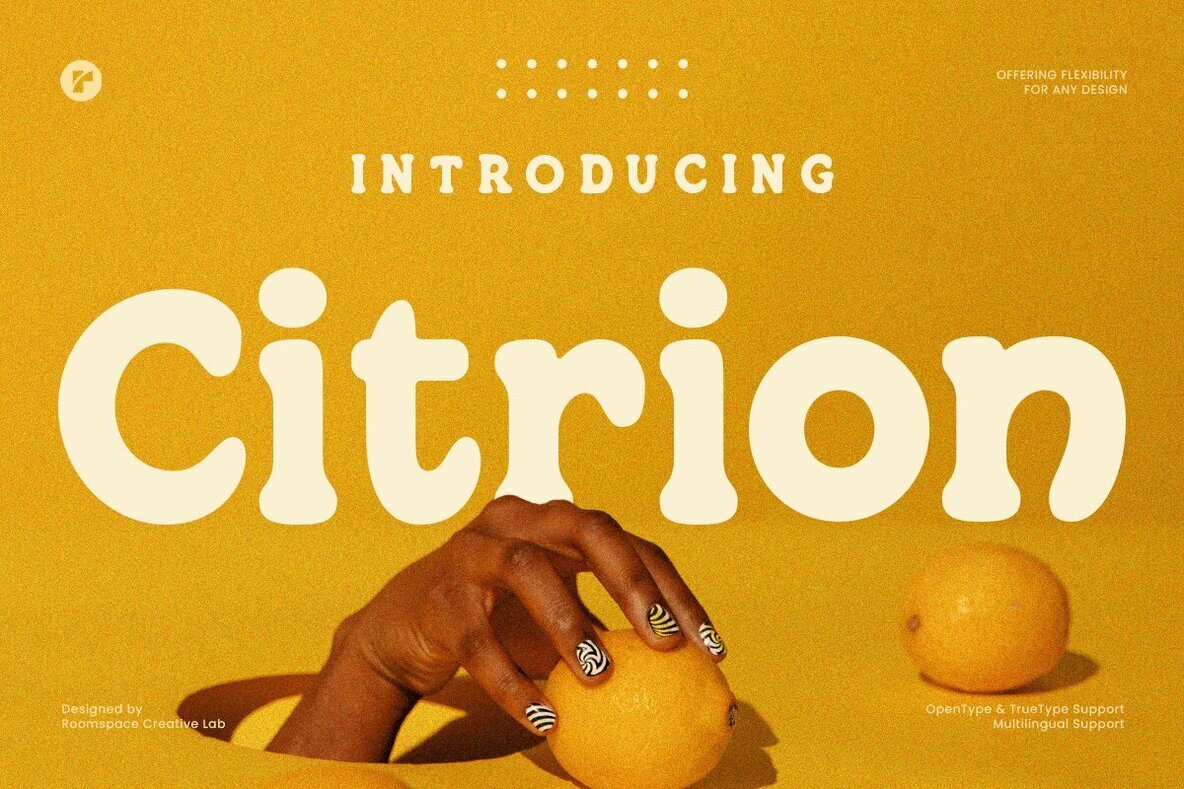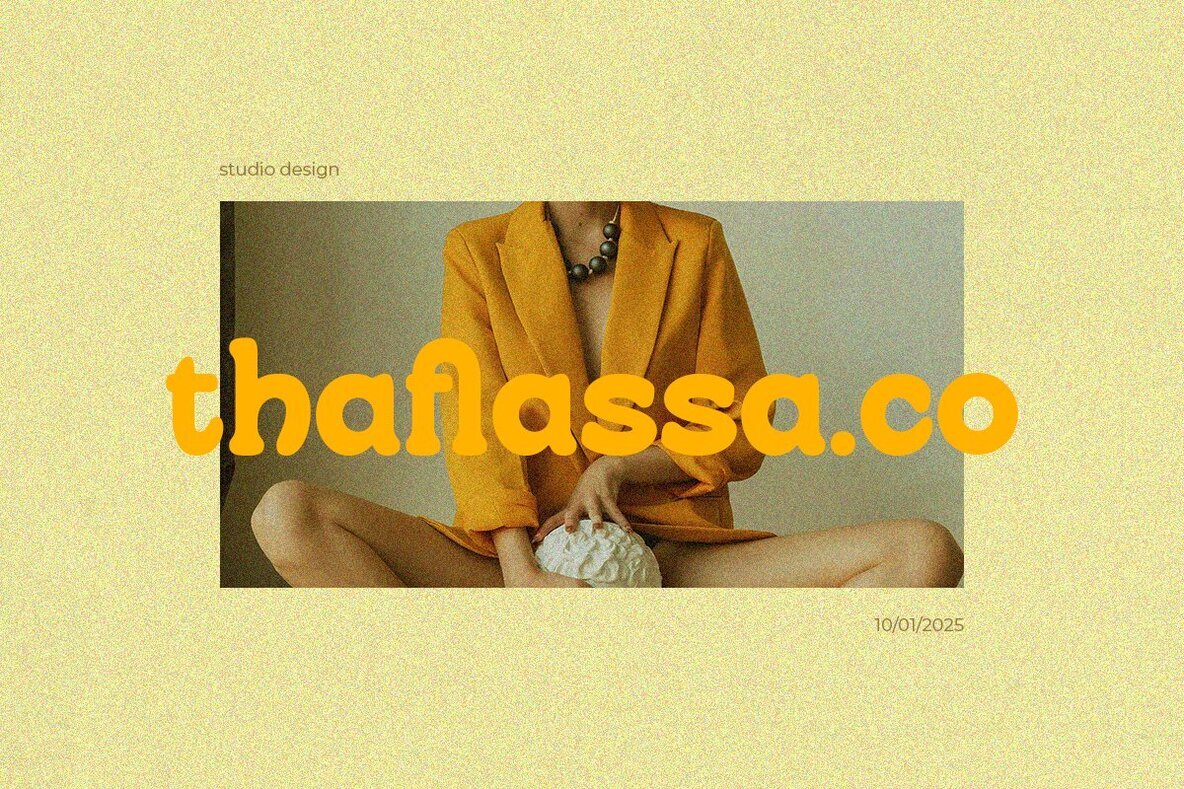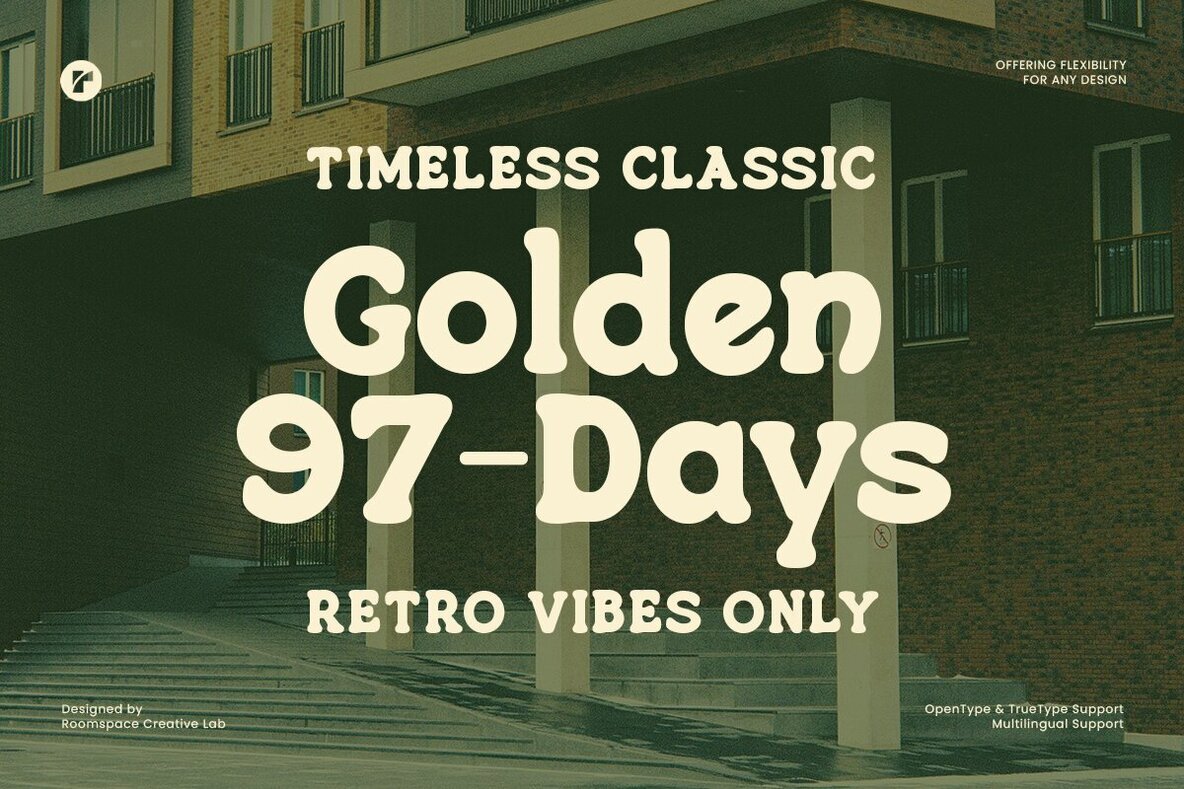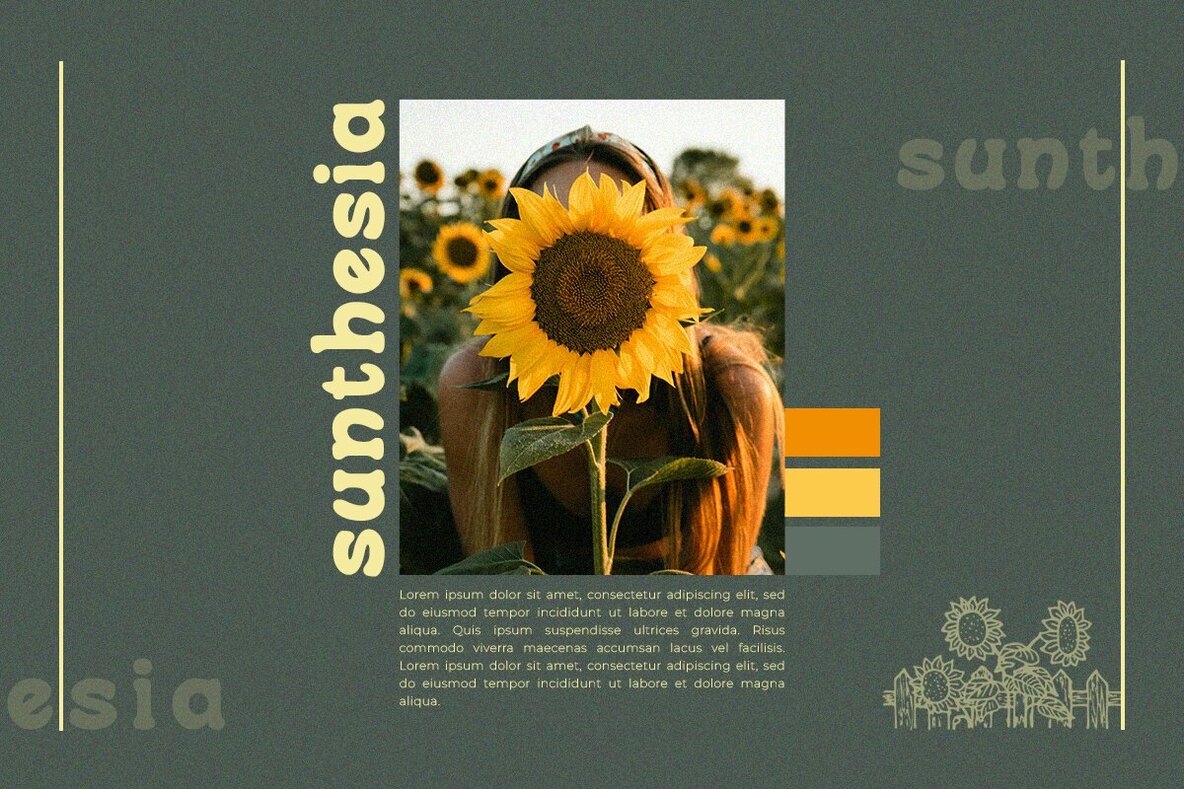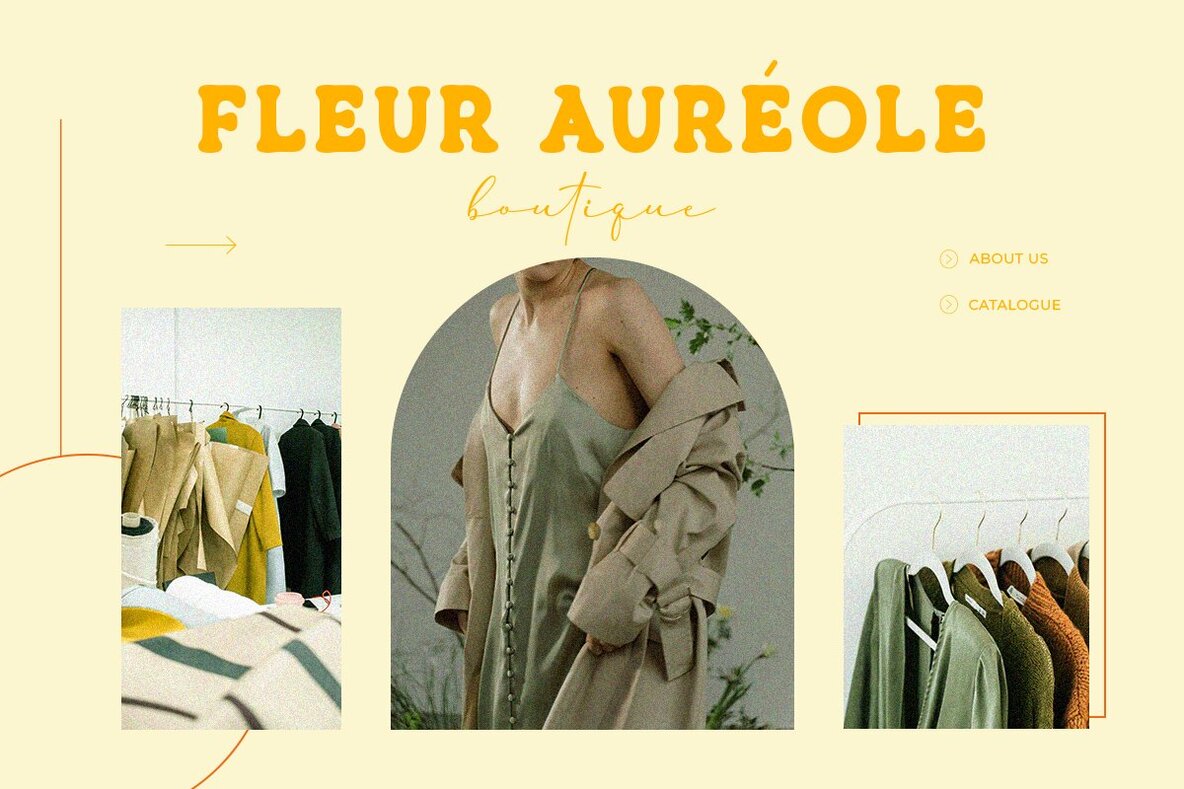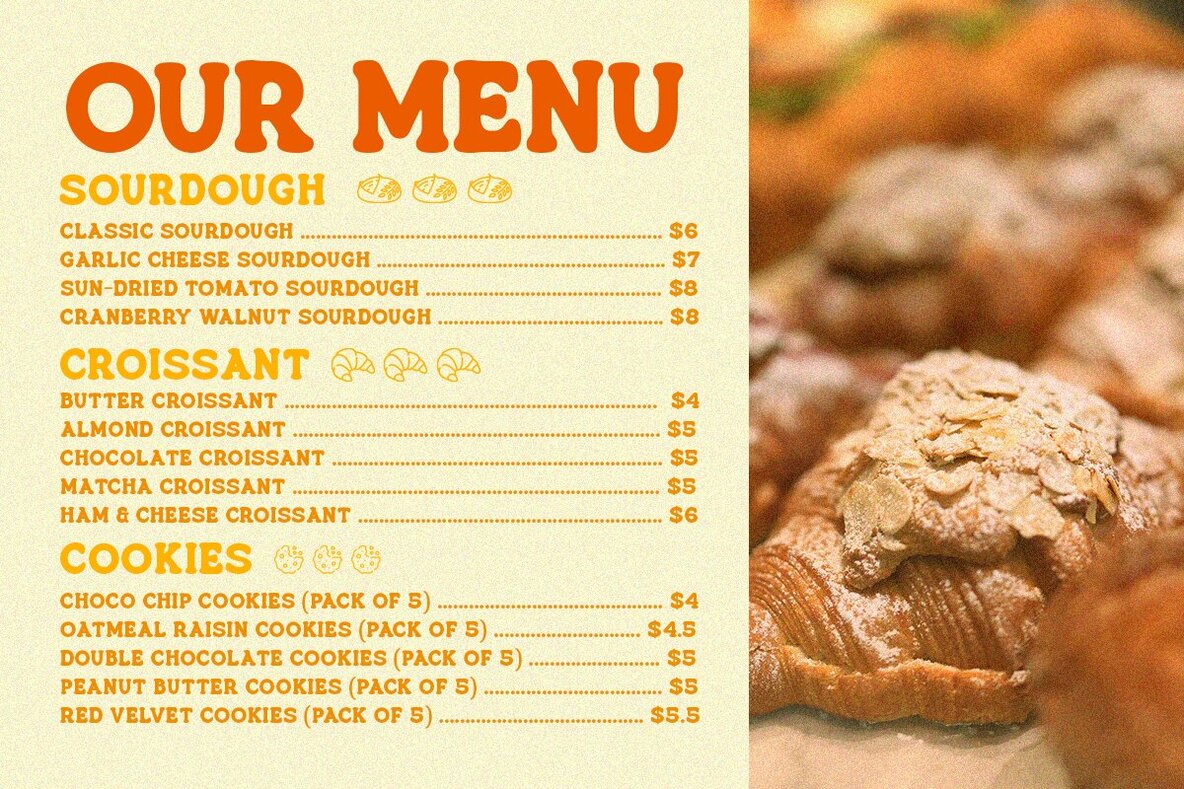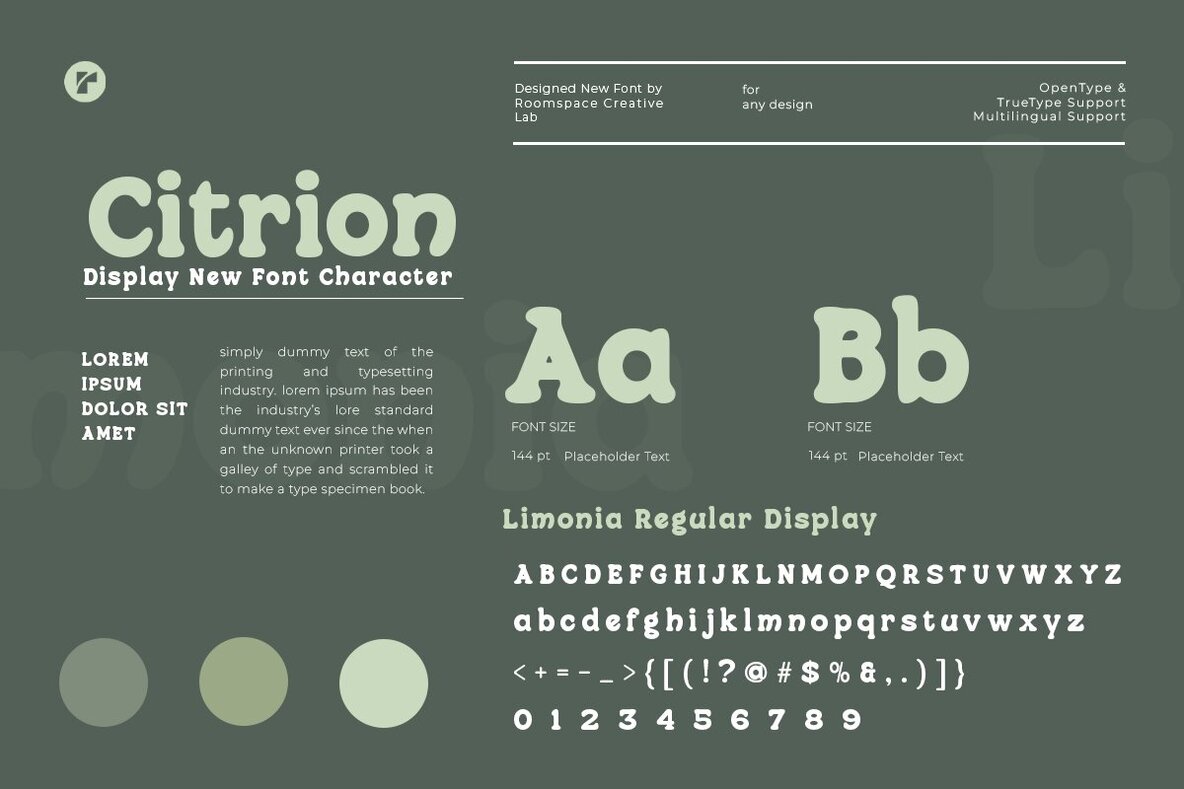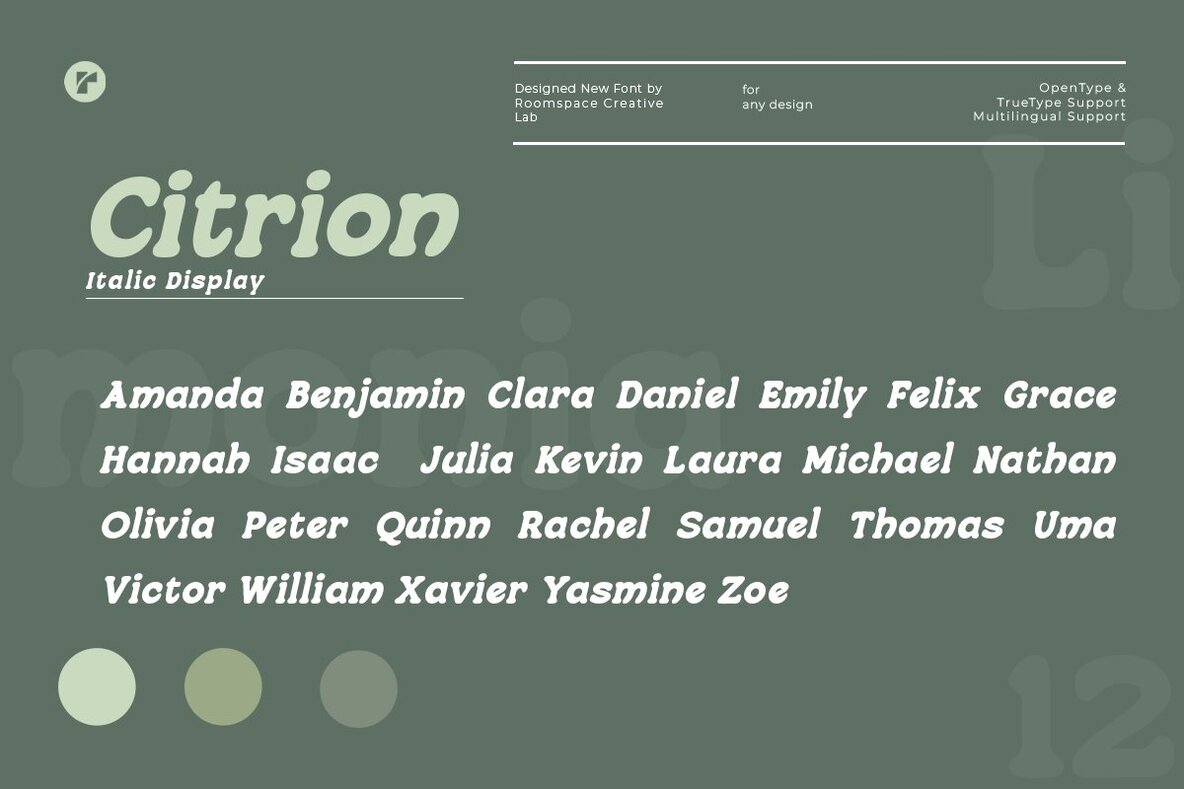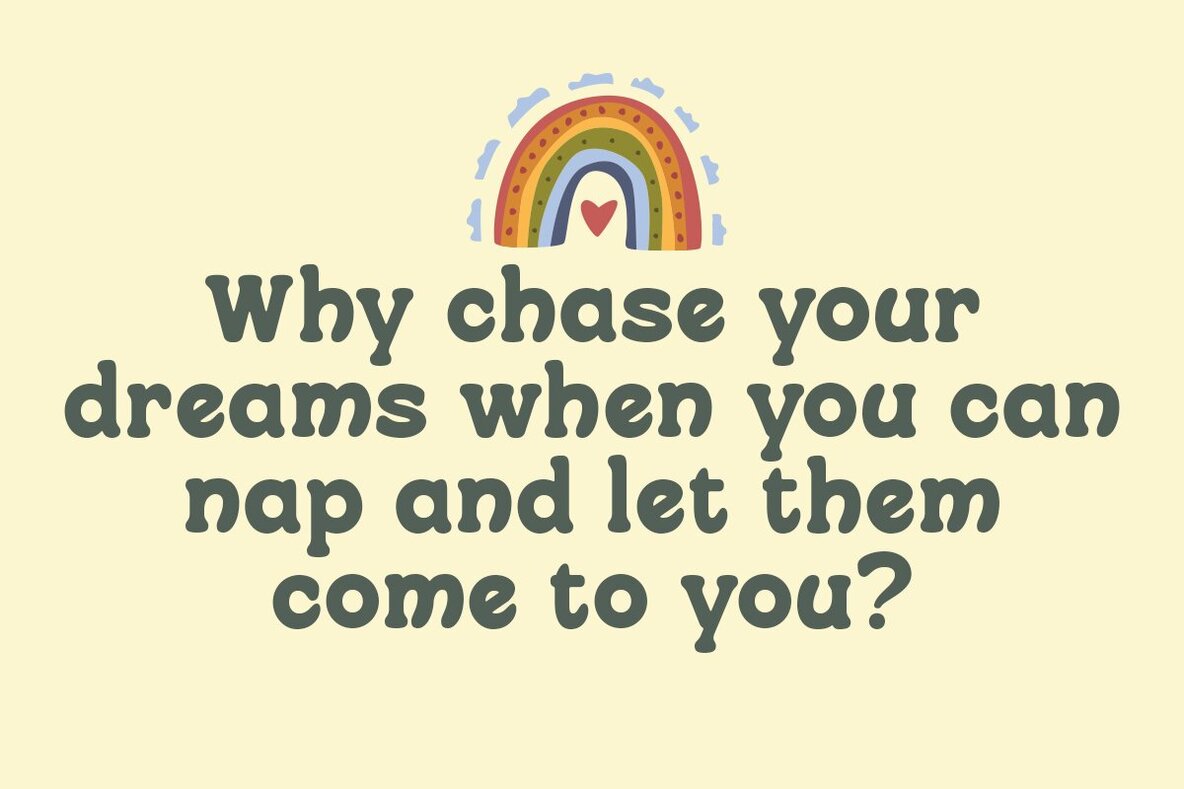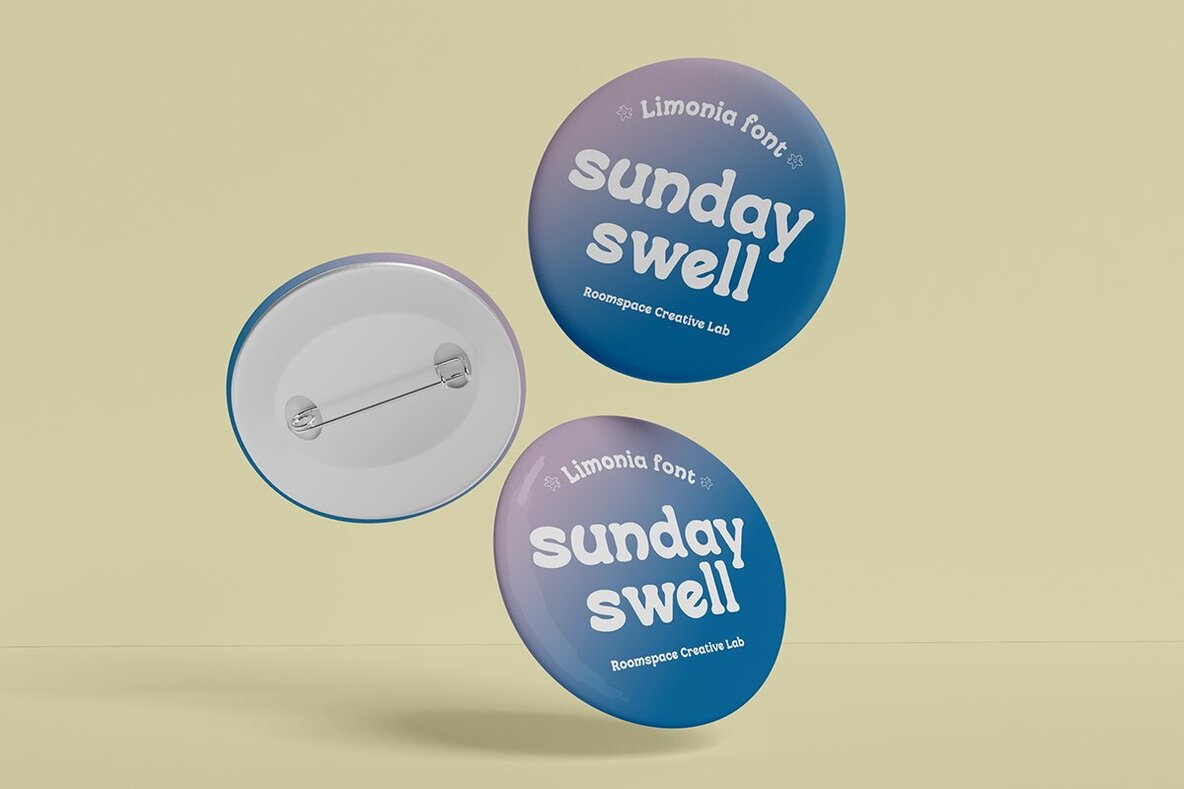
Citrion Font
Citrion is a bold and playful typeface that elegantly marries retro aesthetics with a modern flair. With its unique rounded edges, this font exudes a sense of fun, groovy charm, and vintage appeal while offering exceptional versatility for various projects. Whether you are crafting branding, logos, posters, magazine layouts, or social media graphics, Citrion is your go-to choice for creating bold, memorable visuals. Inspired by the timeless styles of the '60s through the '90s, Citrion boasts a groovy and chunky look that perfectly integrates into modern, classy, or funky projects. Its support for OpenType and TrueType formats, along with multilingual characters, makes Citrion ideal for global designs. Pair this font with your favorite colors and layouts to create eye-catching covers, web titles, advertising campaigns, or social media content. From pop art to minimalist projects, Citrion captures the essence of retro vibes while remaining fresh and relevant.Citrion – Retro Vibes Rounded Serif